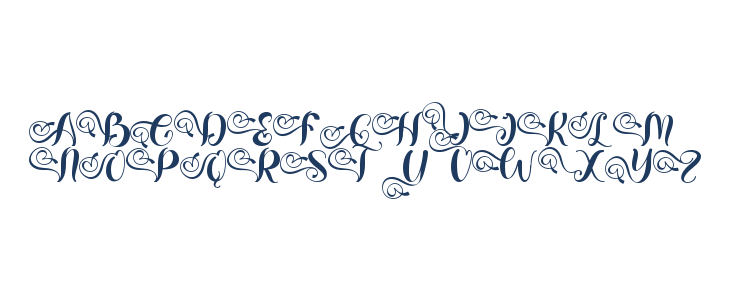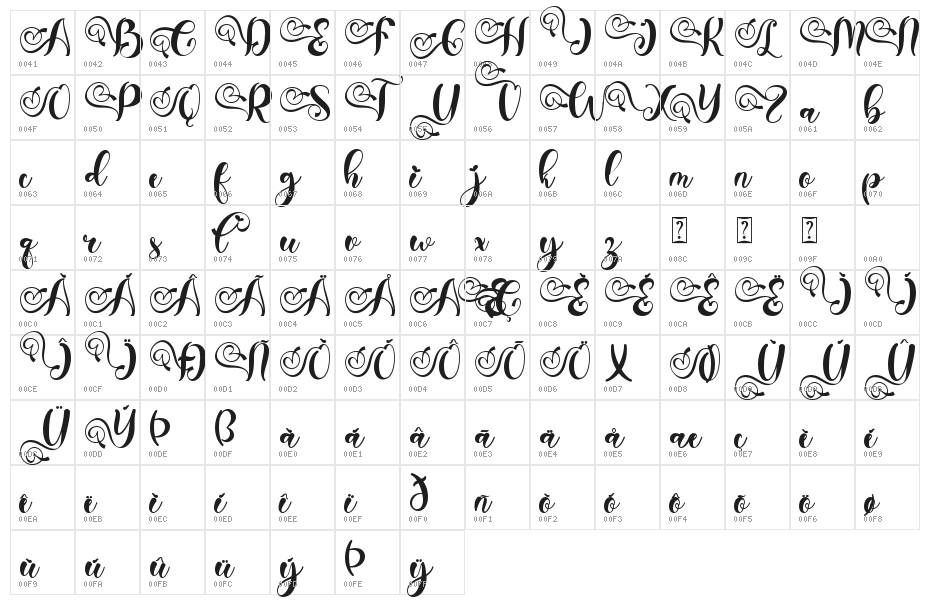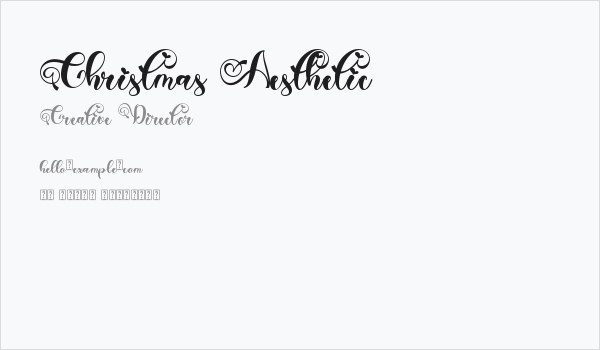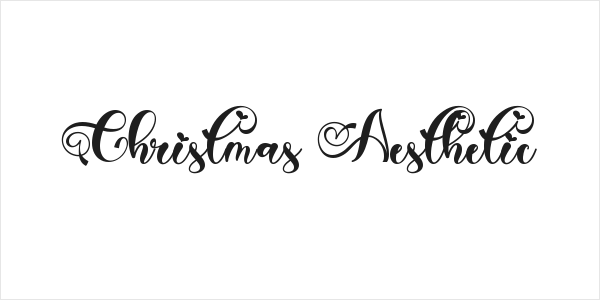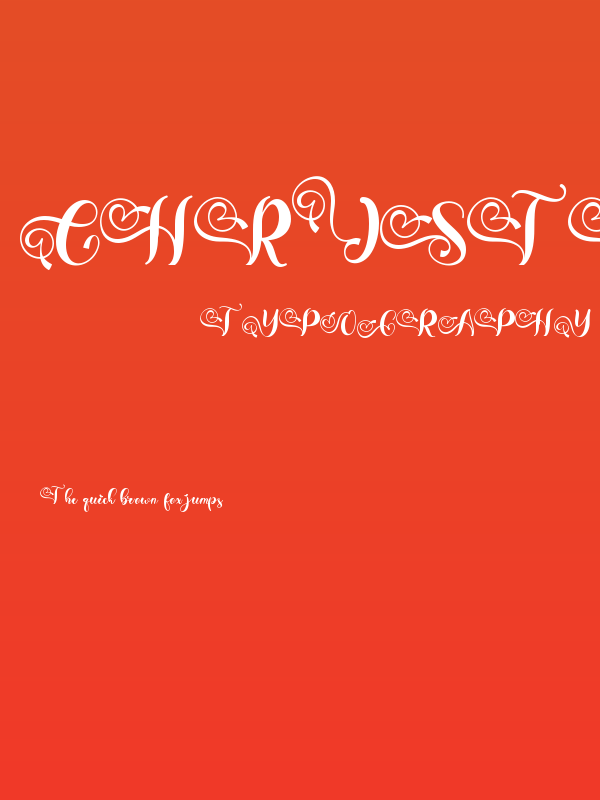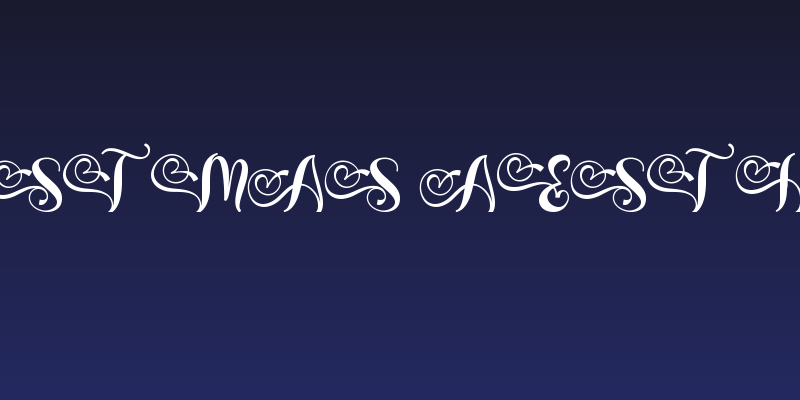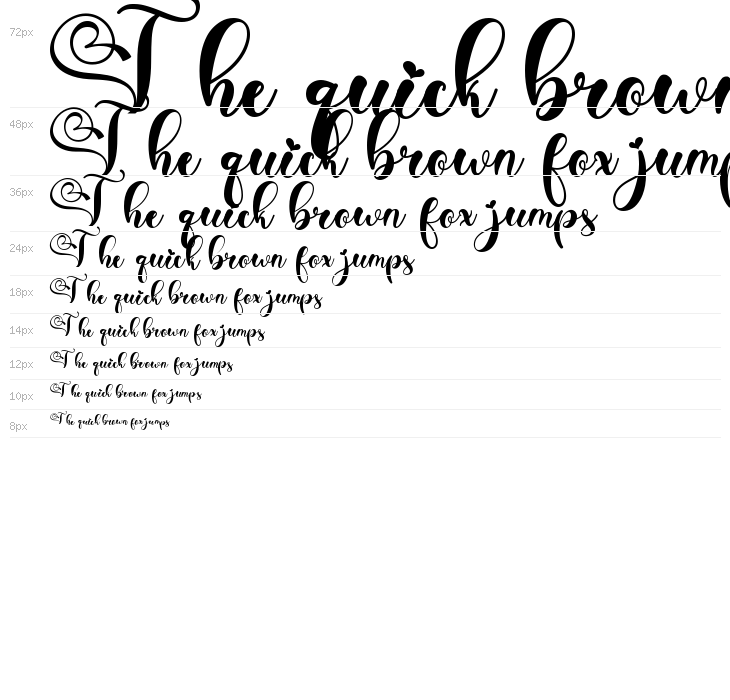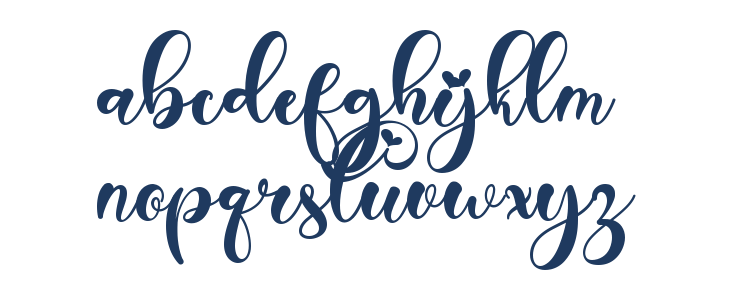
Christmas Aesthetic Font
Christmas Aesthetic Description
A decorative script font with ornate swashes and flourishes, featuring whimsical curls and heart-shaped elements, especially in the lowercase set. The uppercase letters are embellished with festive, vine-like details, while the lowercase letters are bold, flowing, and highly stylized.
| Overall Style | Decorative, Festive, Whimsical |
| Use Case | Headlines, Logos, Invitations, Holiday cards |
| Proposed Projects | Holiday cards, festive invitations, seasonal branding, decorative headlines, event posters. |